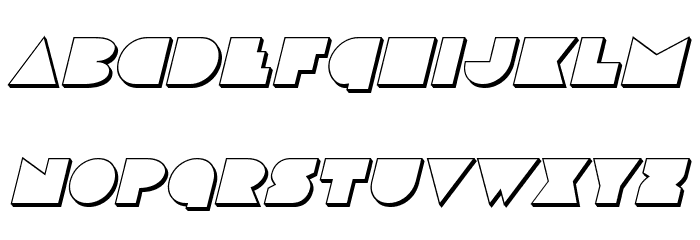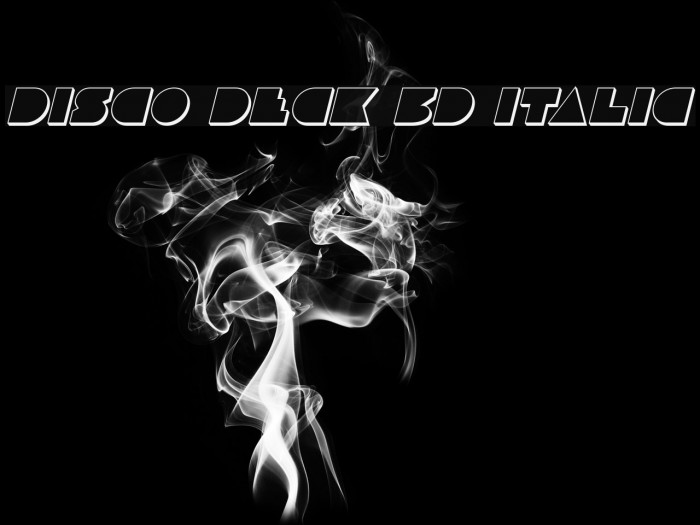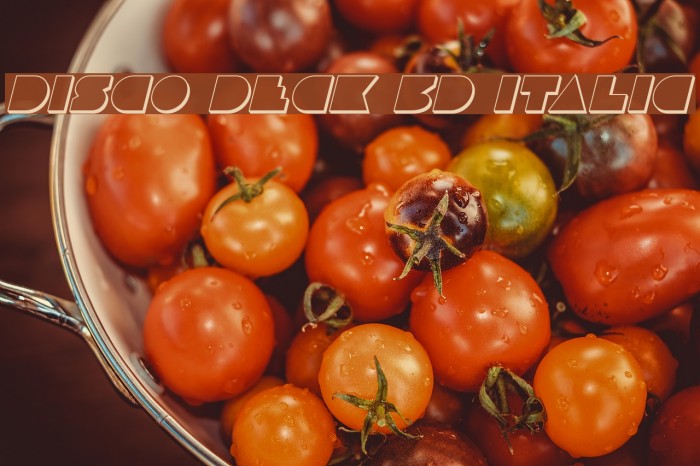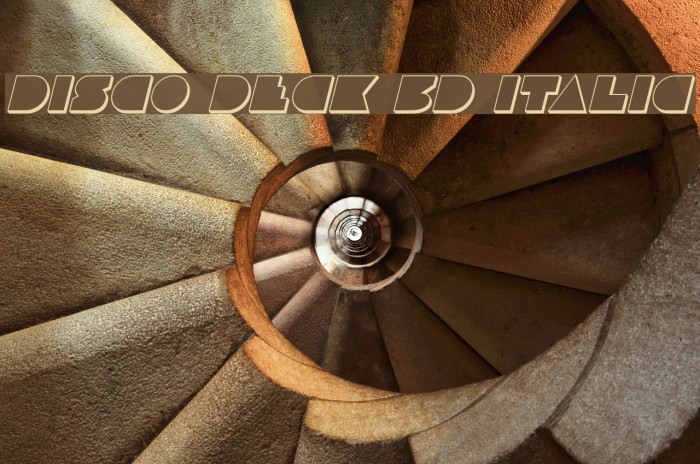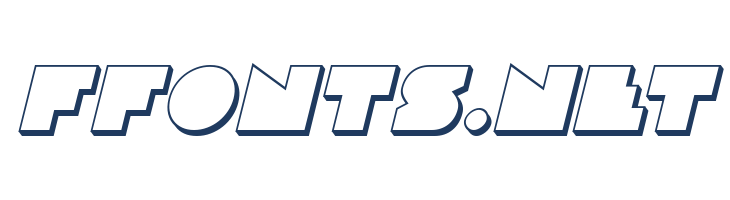
Disco Deck 3D Italic Font
This font features a bold, geometric design with a distinct 3D effect, giving it a dynamic and futuristic appearance. The letters are italicized, adding a sense of motion and energy. The characters are outlined, with a consistent stroke width that enhances the 3D illusion. The style is playful and eye-catching, making it ideal for projects that require a modern and vibrant aesthetic. The font includes a full set of uppercase and lowercase letters, numbers, and a variety of special characters, all maintaining the same bold and angular design.
A bold, geometric 3D italic font with a dynamic and futuristic style.
- Proposed Projects: Ideal for posters, album covers, video game titles, and any project needing a modern, energetic look.